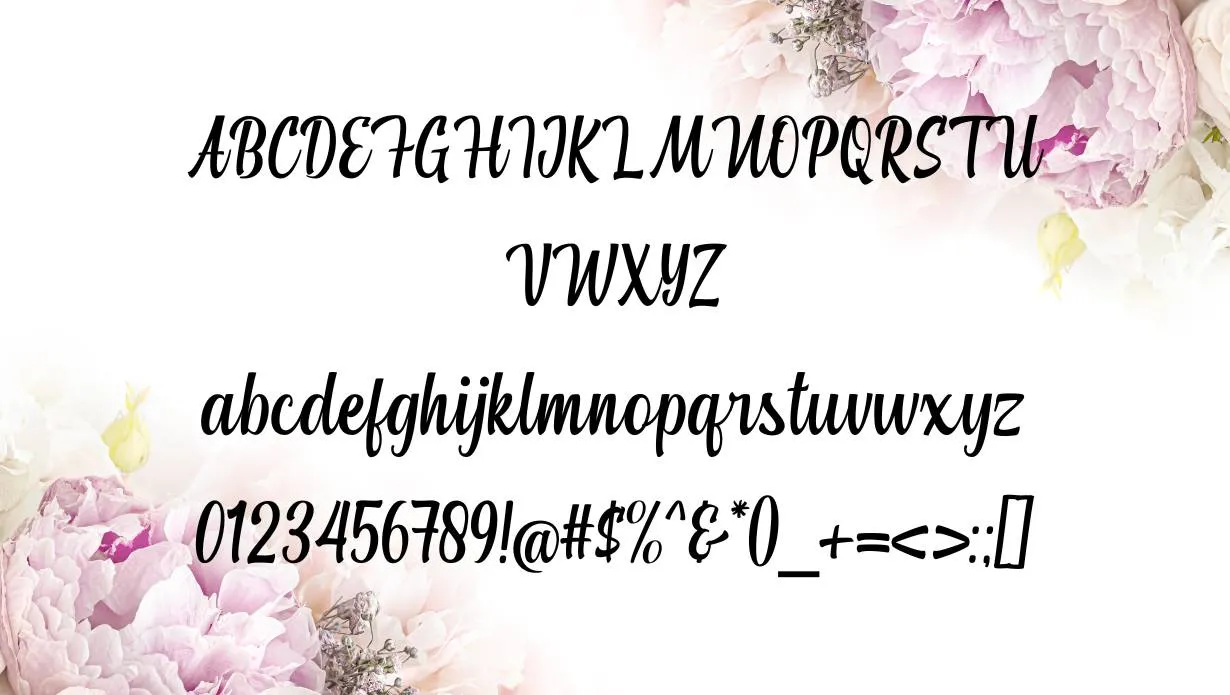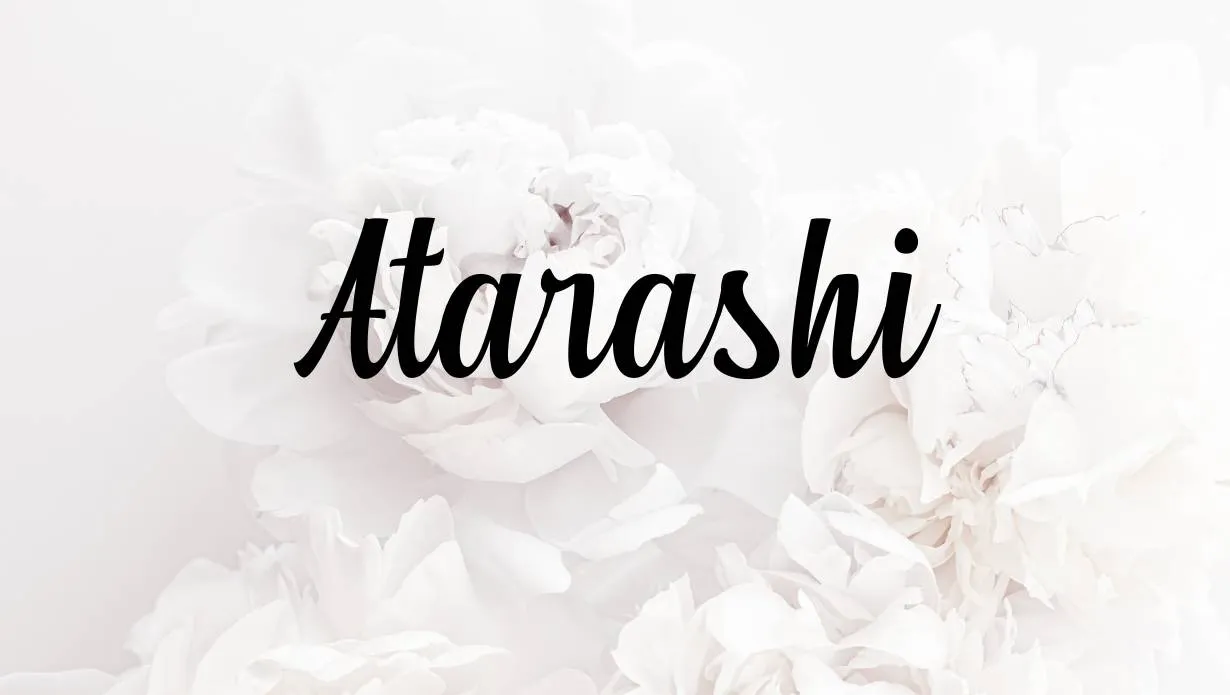
Atarashi Font is a Script font style designed by a famous font designer studio called My Type Studio. This font was intended to be used on print designs as well as print designs.
This font is available on Canva and Figma which are very user-friendly editing tools for your projects. This font is very easy to read and has simple and clear glyphs which makes your design ideal.
This unique style of the characters of this font helps you to create new design ideas with its complete set of characters including capital and small letters, numerals, special characters, and Cyrillic letters. This font also allows multi-language support. By pairing this font with multiple similar fonts like amichan font, nature beauty font, saranghae font, etc. you can design projects of your own choice.
Usage of Atarashi Font
This font is currently used in many Japanese companies and from there it became very popular in Japan. This font is very commonly used for marketing and branding like posters, banners, flyers, brochures, business cards, invitation cards, wedding cards, birthday cards, and greeting cards.
You can make beautiful and eye-catching websites using this unique font style in HTML and CSS. you can also use this font to create PowerPoint presentations, Word documents, and T-shirts designed on Canva and Figma. You can also use Adobe PhotoShop and Illustrator to design amazing logos.
What is Atarashi font style?
It is a Script font family member perfect for any design project which require a touch of elegance and beauty.
Why is Atarashi so popular?
This font is popular because of its stylish characters which looks good in magazines, T-shirt designs, etc.
Who designed Atarashi?
Atarashi Font is a beautiful font style designed by a famous font designer studio called My Type Studio.
Is Atarashi good for resumes?
Yes, this font can be used for resume headlines but it is not recommended to be used in body texts.